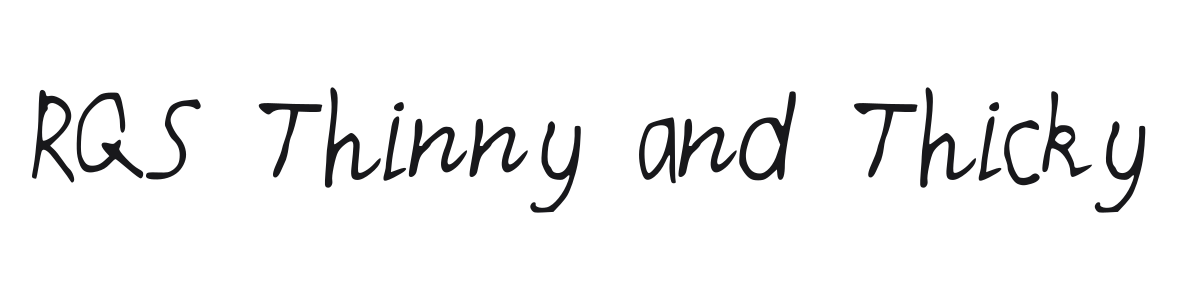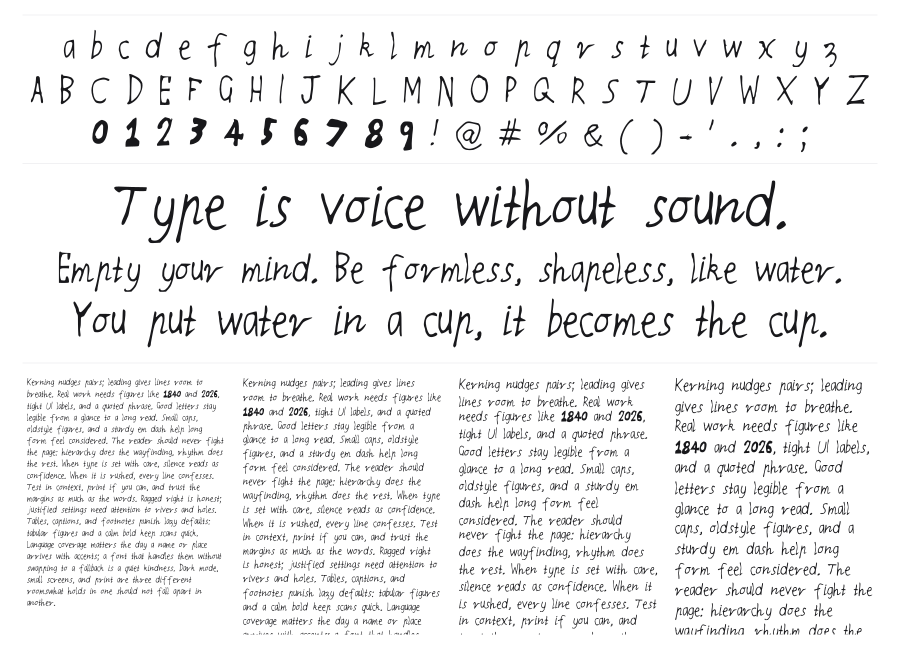
RQS Thinny and Thicky
RQS Thinny and Thicky is a casual handwritten font built around naturally shifting stroke widths, from wispy thin strokes to broader thick ones. The irregular baseline and loose letter construction give it an authentic pen-on-paper feel. Great for projects that need a human touch without veering into formal calligraphy.